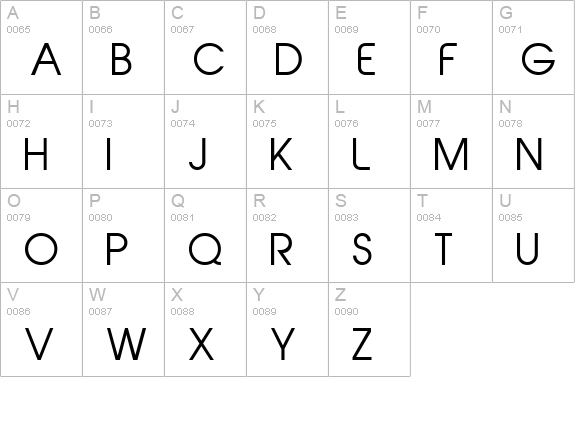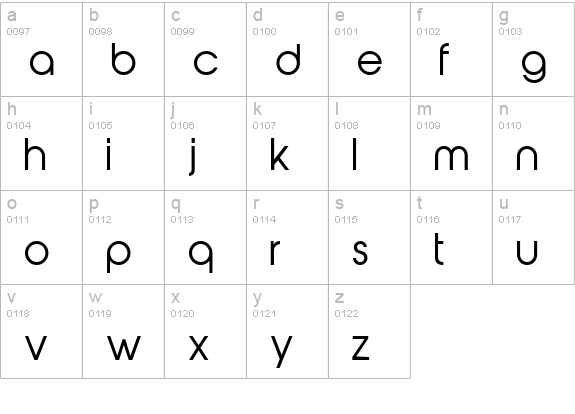
abeatbyKai Font Details
abeatbyKai is a free for personal use font in the General > Sans-Serif category. It has been downloaded 129 times and is available for Windows, Mac and Linux.
abeatbyKai font is a stunning typeface that effortlessly combines elegance with modernity. Its sleek lines and refined curves make it the perfect choice for any design project that requires a touch of sophistication. Whether you are creating a logo, a website, or a print advertisement, abeatbyKai font will elevate your design to new heights. What sets abeatbyKai font apart is not just its impeccable design, but also the fact that it is available for free. Yes, you read that right! This incredible font can be downloaded at no cost from FontsMarket.com. Now you can enjoy the beauty and versatility of abeatbyKai font without breaking the bank. With its wide range of weights and styles, abeatbyKai font offers endless possibilities for creative expression. From bold and impactful headlines to delicate and graceful body text, this font can do it all. Its versatility makes it suitable for a variety of projects, from corporate branding to wedding invitations. The clean and legible characters of abeatbyKai font ensure that your message is delivered with clarity and precision. No matter the size or format of your design, this font guarantees readability and visual appeal. Its timeless aesthetic will ensure that your work stands the test of time. Whether you are a professional designer or a casual hobbyist, abeatbyKai font is a must-have in your font collection. Its versatility, elegance, and, most importantly, its price (free!) make it an invaluable asset for any designer. Download abeatbyKai font today from FontsMarket.com and let your creativity soar.